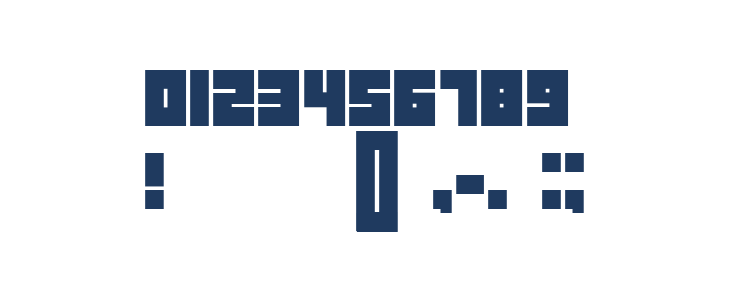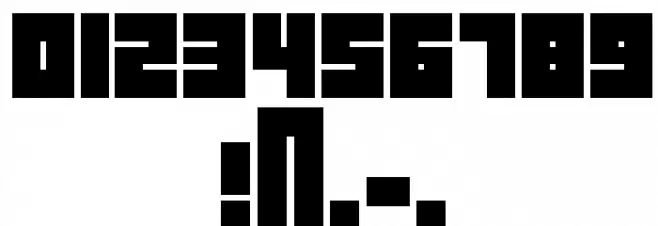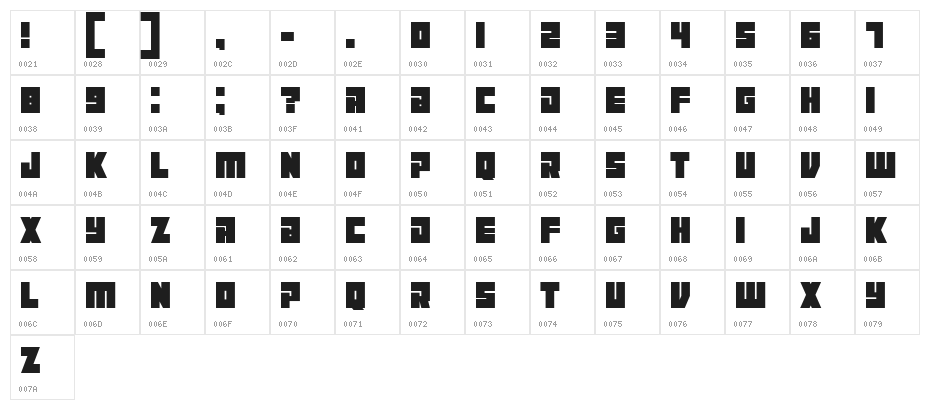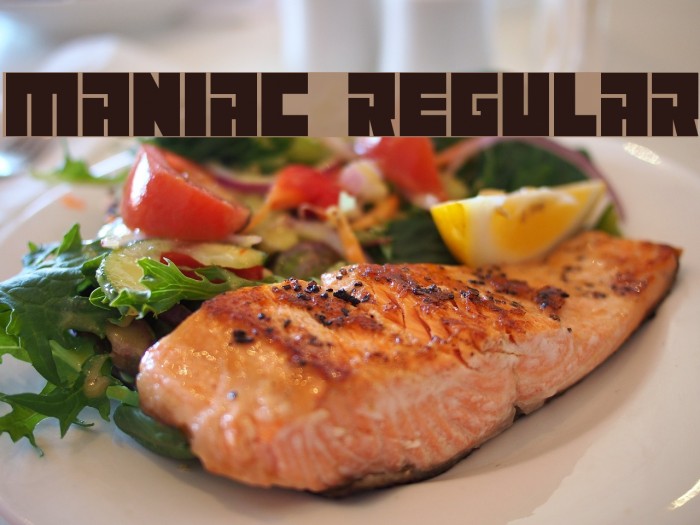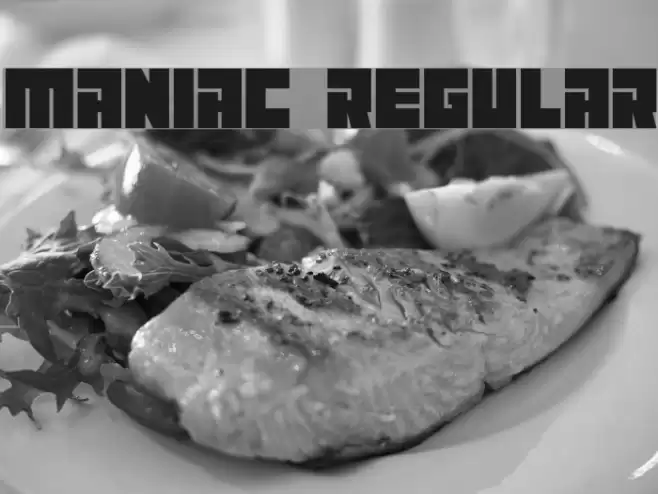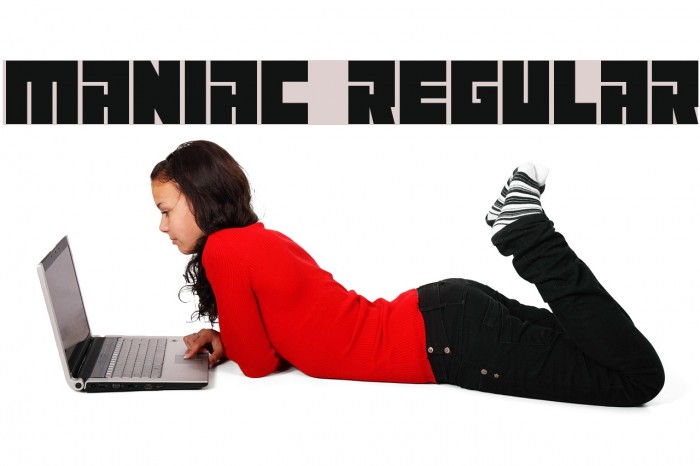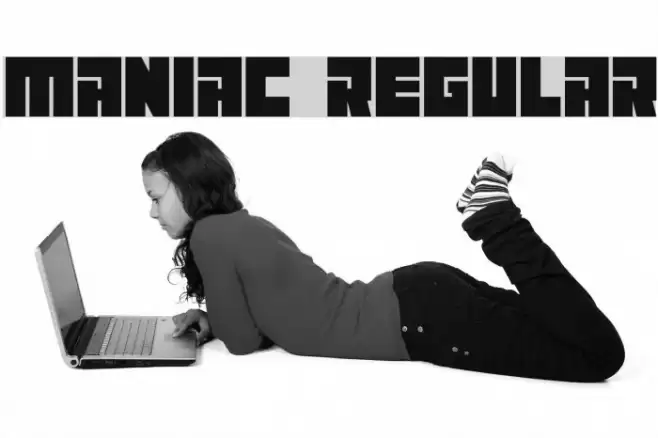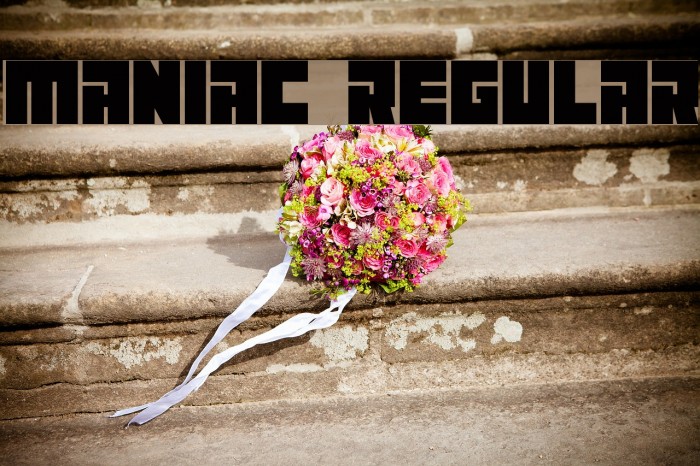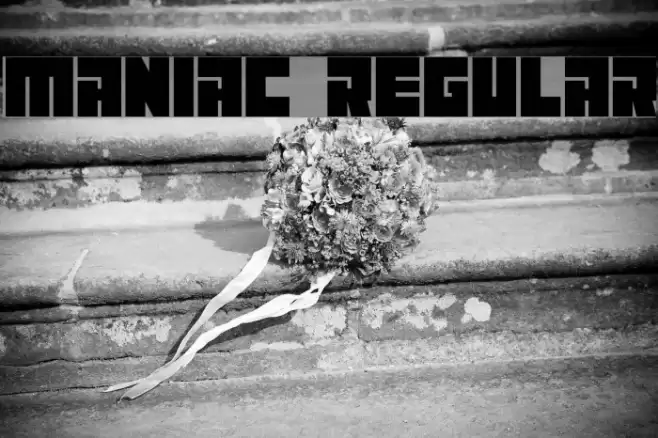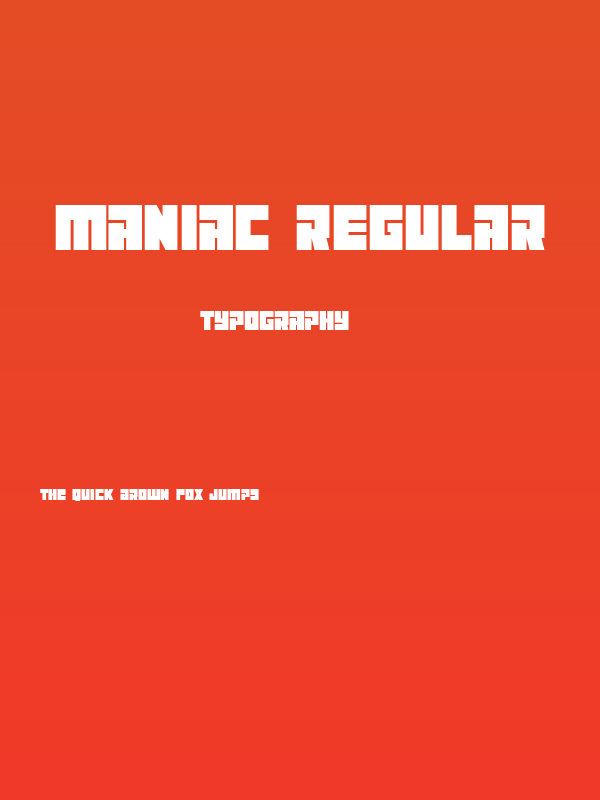
Maniac Regular Font
Maniac Regular Description
This font features a bold and geometric design, characterized by its blocky and angular letterforms. The uppercase and lowercase letters share a consistent width, creating a uniform appearance. The font's design is reminiscent of retro or arcade styles, with a strong emphasis on straight lines and sharp angles. The numerals and special characters maintain the same bold and structured aesthetic, ensuring visual consistency across all characters. This font's distinct style makes it stand out, making it ideal for attention-grabbing designs.
| Overall Style | Retro, Decorative |
| Proposed Projects | Ideal for video game designs, retro-themed posters, and bold branding projects. |